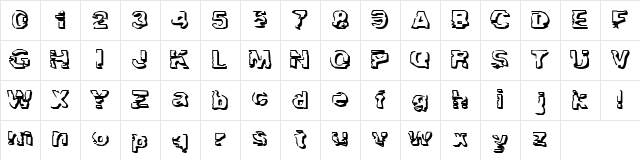
Troglodyte Free Font
Troglodyte Troglodyte
Style: Troglodyte
Design Context for Troglodyte
Troglodyte is a composed and adaptable typeface that performs quietly and consistently across a wide range of design contexts.